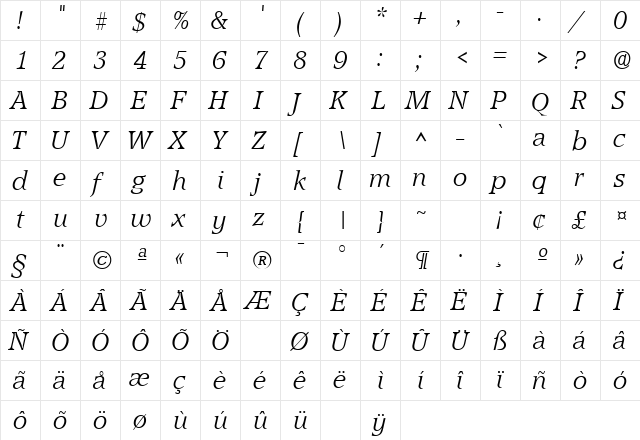
AccoladeLH Italic
Design Context for AccoladeLH Typeface
AccoladeLH takes a measured approach to typography — its balanced proportions and neutral character make it a reliable workhorse for both digital and print work. Its italic angle brings a sense of urgency and motion to the letterforms.